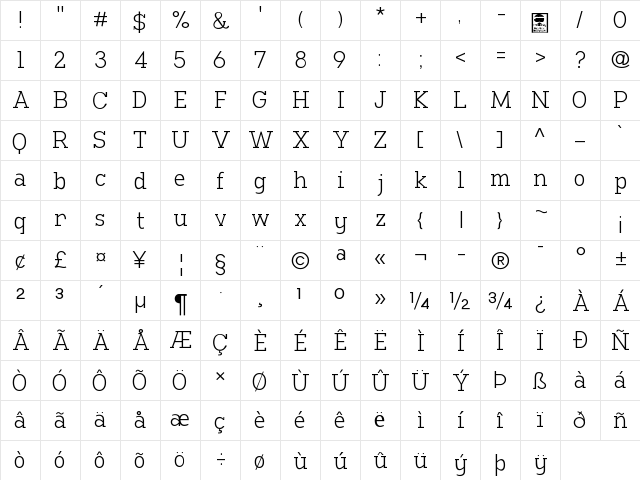
Manti Slab Light Demo Regular Font Preview
| Foundry | StudioTypo |
| Designer | Mehmet Abac |
Design Context for Manti Slab Light Demo Typeface
Manti Slab Light Demo combines the readability of serif typography with the visual weight of a slab construction, resulting in a typeface that feels both authoritative and approachable. Its slender proportions lend an understated elegance to any composition.
Suited to magazines, political campaign materials, bold packaging, and any setting where authority matters.
Pro Tip: Use Manti Slab Light Demo for headlines and subheadings where its slab serifs can make an impression. It also holds up well in mid-size body copy thanks to its sturdy construction.